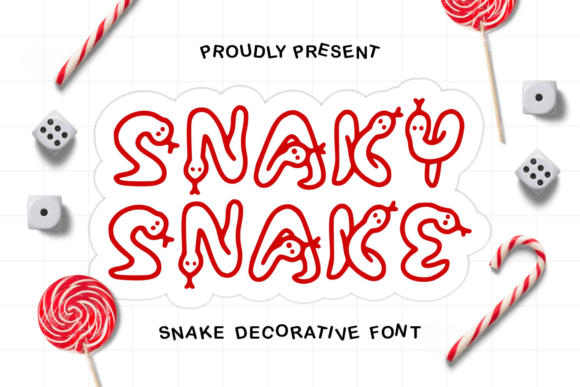
Introducing Snaky Snake Font, the ultimate font for adding a touch of charm and elegance to your creative projects. With its smooth curves and enchanting visual style, Snaky Snake embodies the essence of grace and sophistication, transforming ordinary text into captivating works of art.
Immerse yourself in the world of Snaky Snake, a decorative font that dances across the page, captivating your audience with its alluring presence. Its versatility knows no bounds, shining brightly in both large and small sizes, making it the perfect choice for a multitude of projects, from enchanting headings and logos to eye-catching invitations and branding.
Step into a realm of limitless possibilities with Snaky Snake. Its adaptability extends far and wide, making it an ideal companion for magazines, photography, cards, product packaging, and product mockups. Let your imagination run wild as you create stunning mugs, posters, labels, and signatures that leave an indelible mark.
Unleash the power of Snaky Snake in the world of editorials and art deco, where its intricate details and elegant charm take center stage. As a versatile font, Snaky Snake excels in any type of advertising purpose, captivating your audience and leaving them spellbound.
Elevate your designs to new heights with Snaky Snake, a font that exudes confidence and sophistication. Its ability to transform ordinary text into something extraordinary makes it a must-have for any creative endeavor, whether you're a seasoned designer or just starting your artistic journey.
Embrace the allure of Snaky Snake and let your creativity flourish. Each letter, meticulously crafted with precision, adds a touch of magic to your work, ensuring that your projects stand out from the crowd. Dive into the captivating world of Snaky Snake and discover the endless possibilities that await you.